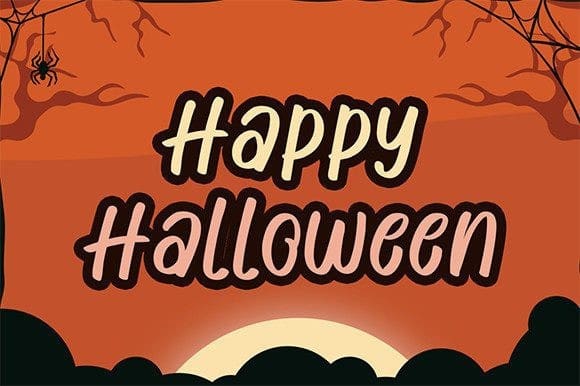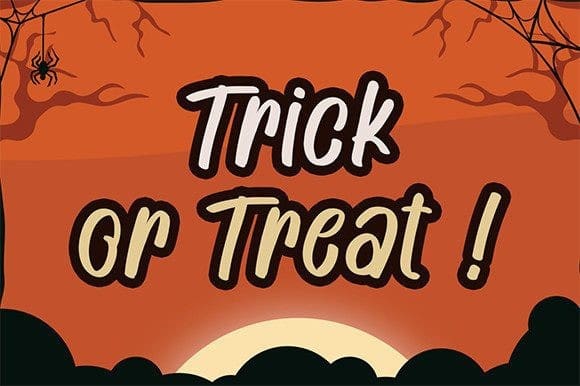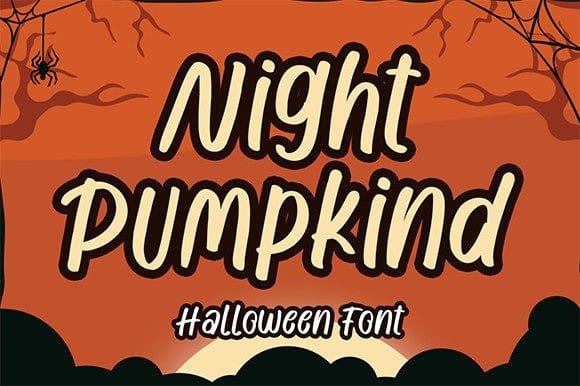
Night Pumpkind Font
Night Pumpkind Font is a Halloween font but with a fun and unique feel. Celebrate Halloween with this font!
This font is suitable for use on Halloween, social media, posters, magazines, quotes, movies, watermarks, and invitations.